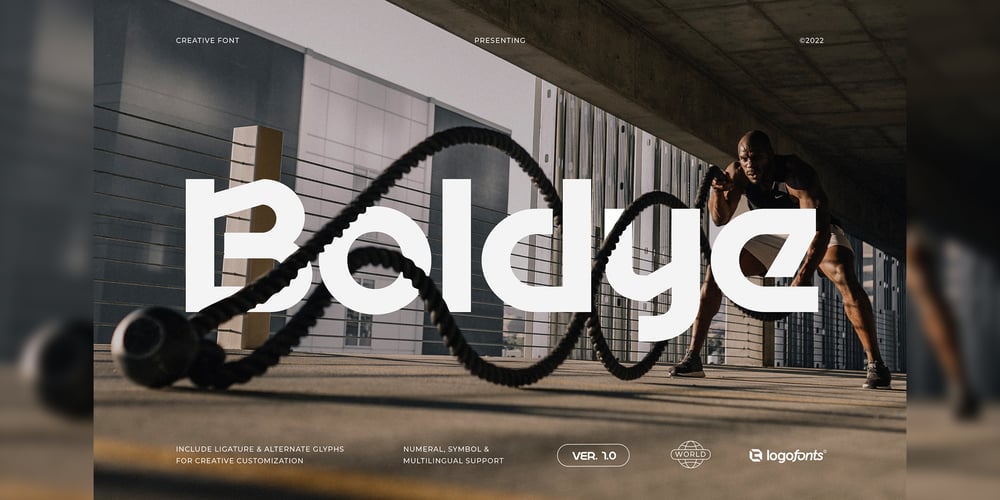
Boldye Font Family was designed by Anna Safitri and published by Logofonts. Boldye contains 1 styles and family package options. Boldye Font Inspired by the Reebok Logo and Sport typeface style. Boldye are strong on the curves and sharp on the edges of some of the letters suitable for logo projects, branding, posters with sports themes. Easily creates your own logo type with fonts. Boldye has an Open Type feature to access a large selection of unique alternative letters and many ligatures to make it easier for you to create.Boldye can be accessed perfectly on design applications such as Adobe Illustrator, Adobe Photoshop, Corel Draw, Affinity Designer but does not rule out the possibility that it can also be accessed using web-based applications such as kittl, canva, artboard studio and others.